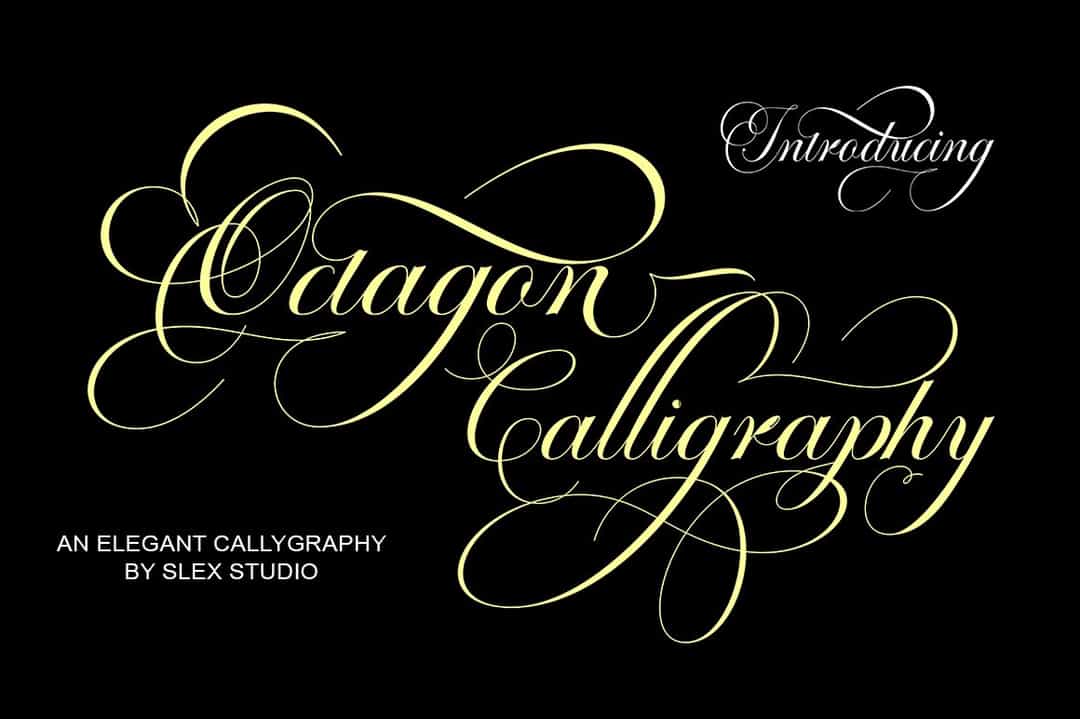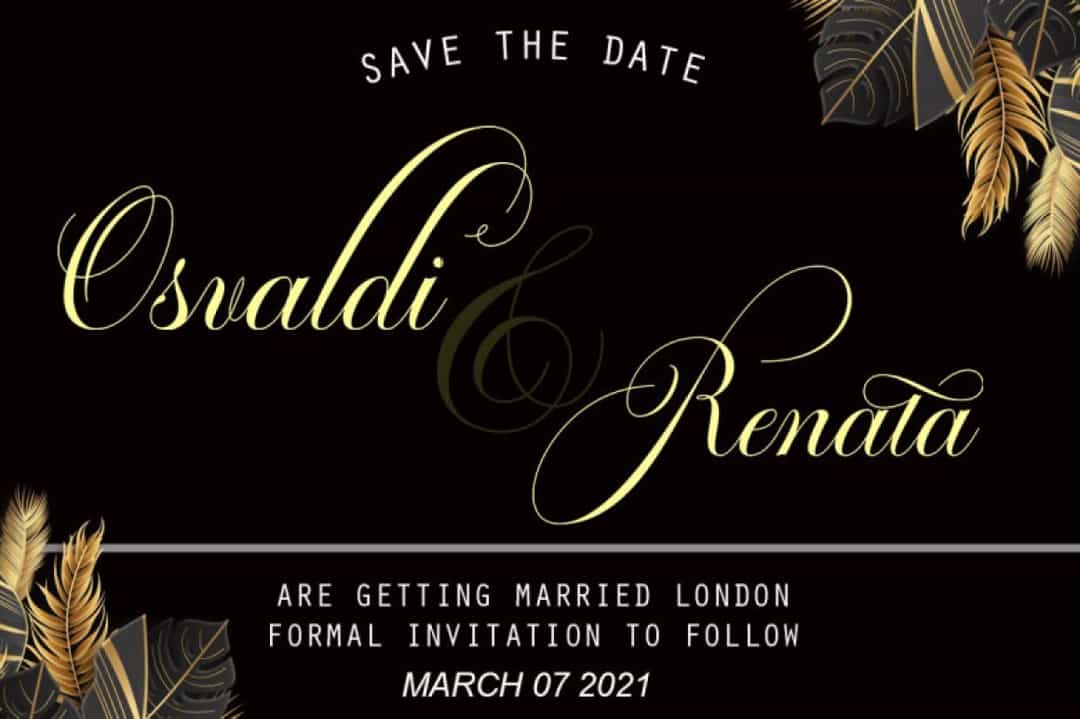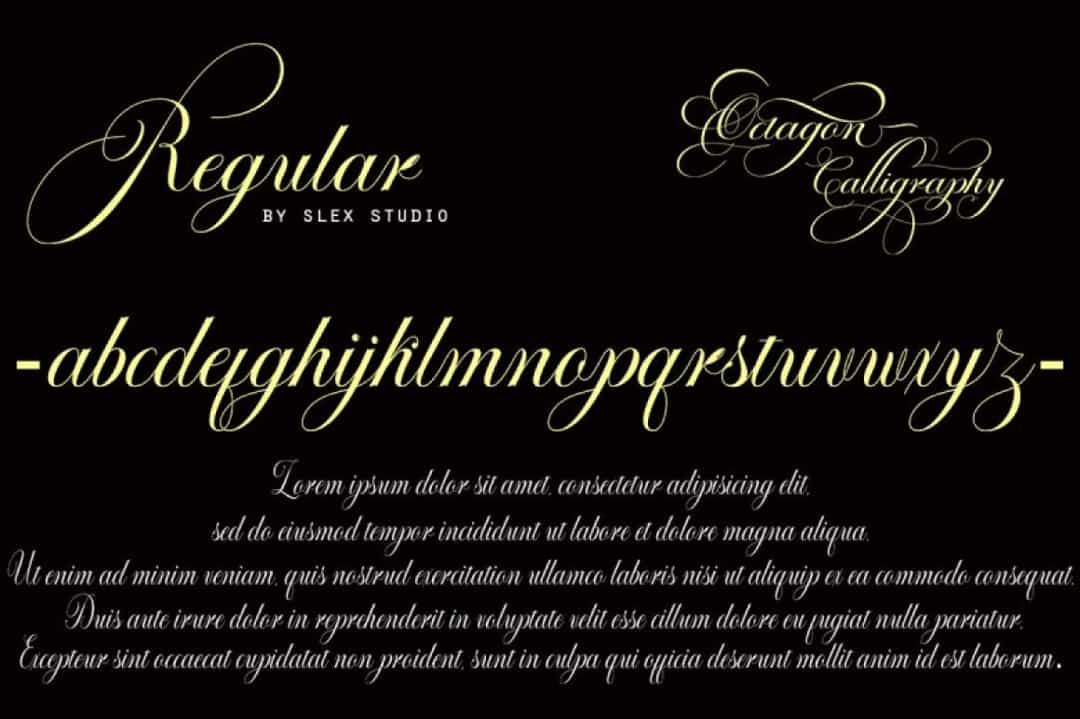
Octagon Calligraphy is an elegant script calligraphy font with traditional styling, inspired by women writers and old manuscripts. Careful consideration was taken in designing it harmoniously so it can be used effectively when used for wedding invitations, books, book covers and greeting cards, logos corporate cards branding certificates or any design project that demands classic, elegant or formality.